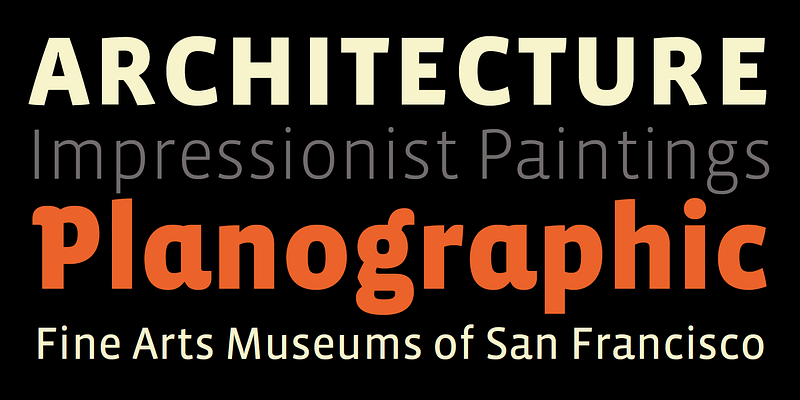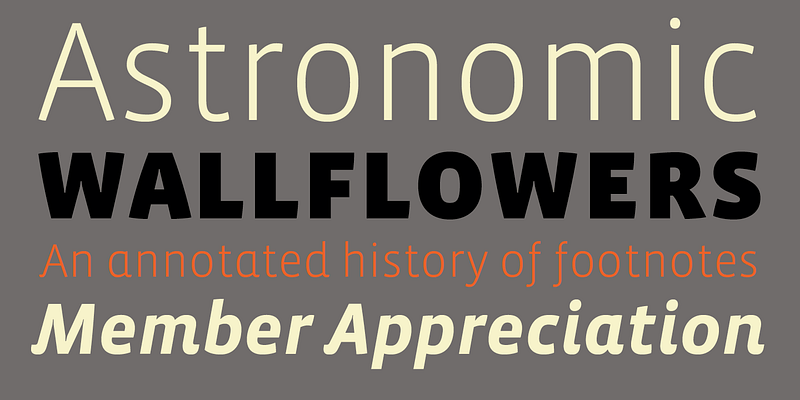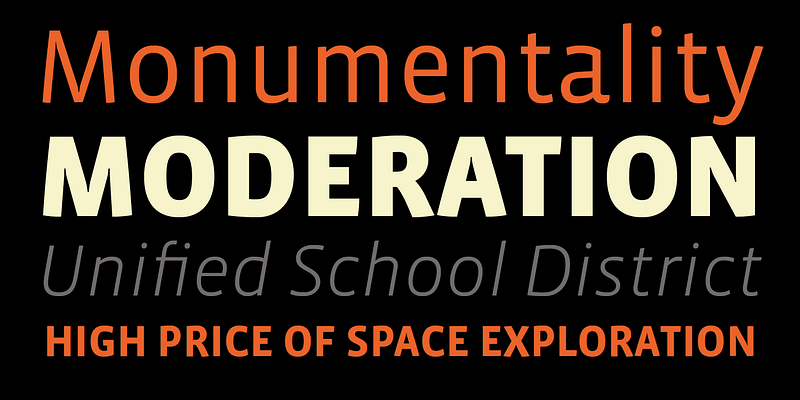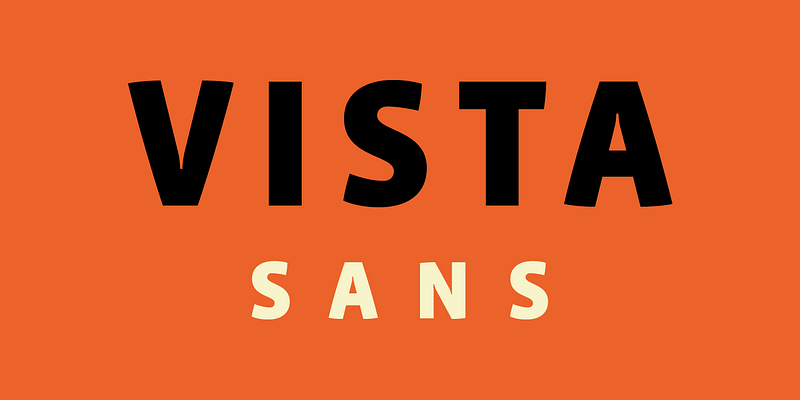
The concept for Vista began in July of 2002, when Dupré sketched a few characters in a notebook while staying in Sumatra on holiday. Most of the shop signs in Sumatra that caught his eye featured wildly idiosyncratic hand lettering, often with extreme slab- and triangular serifs (probably inspired by Western Americana), and other unusual shapes.
In reaction to this, Dupré set out to design a semi-serif typeface that would retain some of these animated characteristics, while being useful enough for more general text applications. He was inspired by Erik Spiekerman’s FF Meta, which succeeds at combining the humanist appeal of calligraphic forms with the pragmatic simplicity of the sans.
After a number of false starts, in May of 2004, Dupré arrived at the right proportions for a text font that was not too condensed to preserve comfort in reading, and not too wide for economy of space. The text weights are loosely spaced while the bold and black are spaced more tightly. This type of spacing emphasizes the lightness and blackness of the respective weights. It also makes the lighter weights more legible when setting long texts at small sizes, while the Black weight, which is more appropriate for titling, is given more impact with the tighter spacing.
The a, always a favorite of Dupré, became the most characteristic letter, setting the tone for the typeface. Dupré considers it the soul of Vista. Together with the lower case g they are the most difficult characters to design. While drawing these early forms he was also inspired by blackletter types, particularly their contrast, emphasis on the vertical, and strong graphic look and feel. He combined these features with more humanist shapes to make a well-working text font. The form and the rhythm of Vista are a blend of blackletter and humanist writing.
There are many subtle details in Vista that become interesting at large sizes. For example, the elegant, slightly bulging edge on some of the stroke endings. When he was studying type design at Scriptorium de Toulouse, Dupré drew type calligraphically by hand on tracing paper without a ruler. As a result, his type designs were always very curvy and smooth, perhaps too much so, but it’s something he enjoyed. It’s not easy to add subtle curves to a sans design because without serifs there are fewer areas where one can introduce curved details. So with Vista he experimented with adding the curves in slightly unusual places such as some of the stroke endings.
Other details include ink traps in some characters (x, v, w…) and squarely notched inside cusps in other characters (b, n, r…). Both of these treatments, while seemingly different approaches, add a square appearance to otherwise pointed areas, and unifies the characters.
When he finished the design of the regular weights, he found them lacking in what had first inspired him: the hand-lettered shop signs in Sumatra. So alternate forms were added to provide subtle variety for titling usage. To prevent over-usage of the alternates, which can easily result in unappealing typography, especially in the hands of a novice designer, only a select number of characters have alternate forms. Unlike traditional swash caps, the Vista alternates can easily be used for whole words or short sentences, striking a healthy balance between functionality and expressiveness.
Each of the six weights include alternate, small cap and italic variants for a total of 36 fonts in the family. They are available in a full volume of 36 fonts, or in four packages. The packages are grouped into two sets of contrasting weights, with the alternates and small caps divided into separate packages.